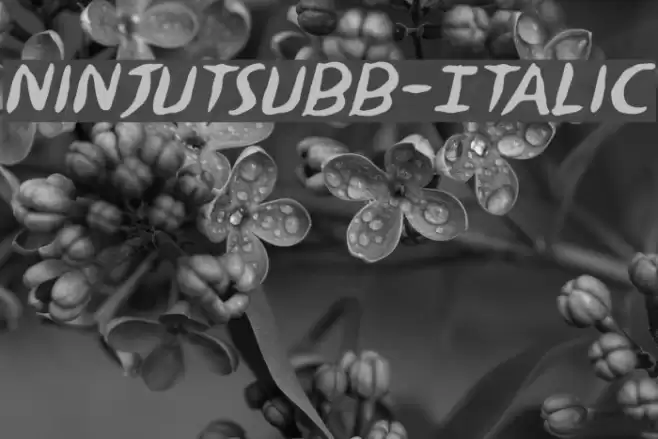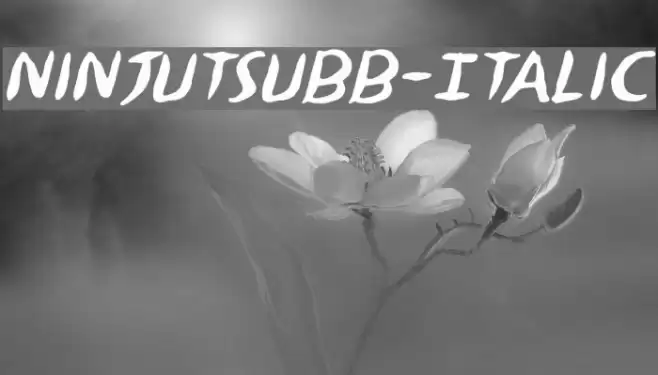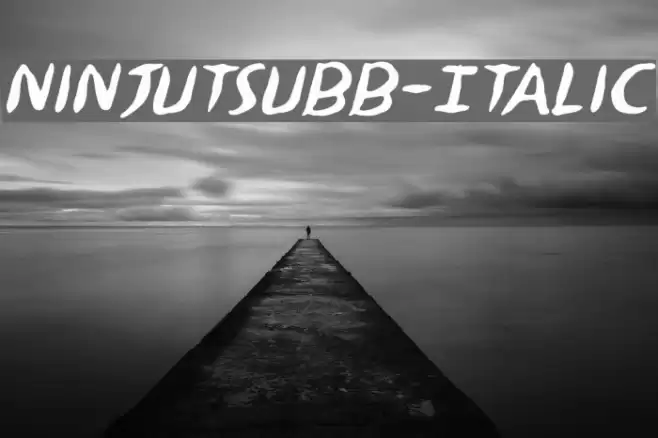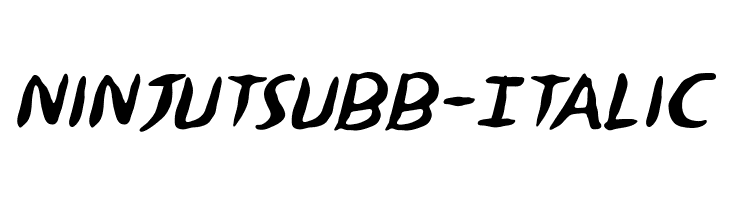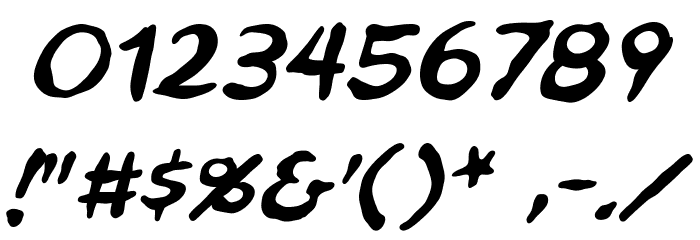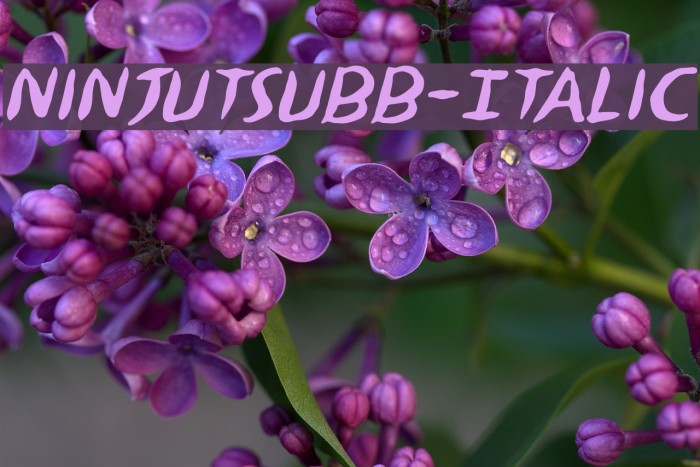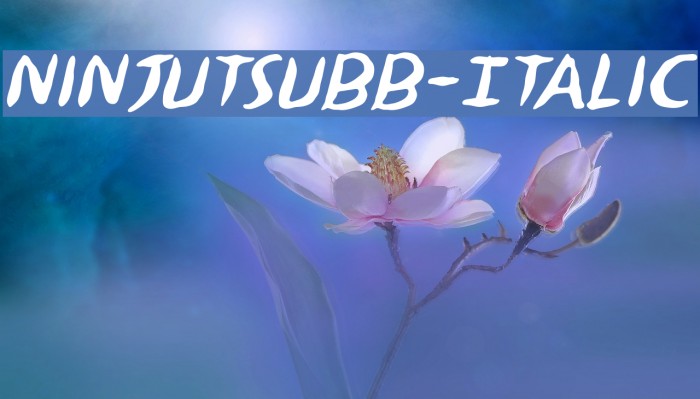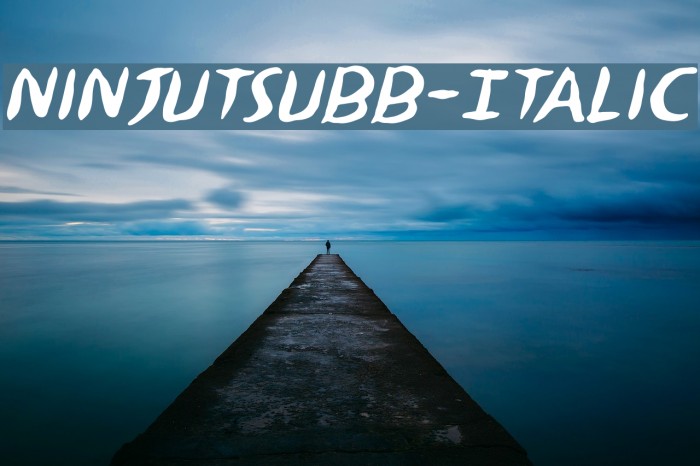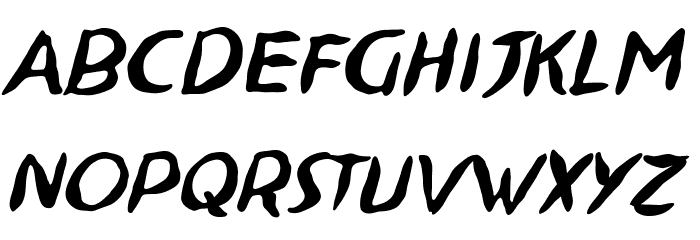
NinjutsuBB-Italic Font
NinjutsuBB-Italic Description
This font features a dynamic and energetic style, characterized by its italicized and bold appearance. The letters have a hand-drawn quality, with strokes that vary in thickness, giving it a lively and expressive feel. The uppercase and lowercase letters maintain a consistent slant, enhancing the italic effect. Numbers and special characters are designed to match the overall aesthetic, making them cohesive with the alphabet. This font is ideal for projects that require a sense of movement and personality.
A bold, italicized font with a dynamic, hand-drawn style from Uncategorized fonts.
- Proposed Projects: Great for posters, branding, and creative projects that need a bold, expressive touch.